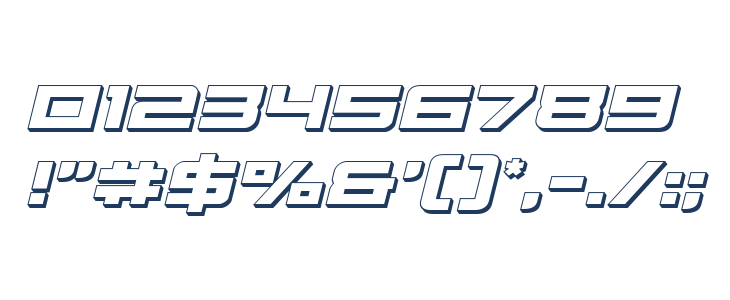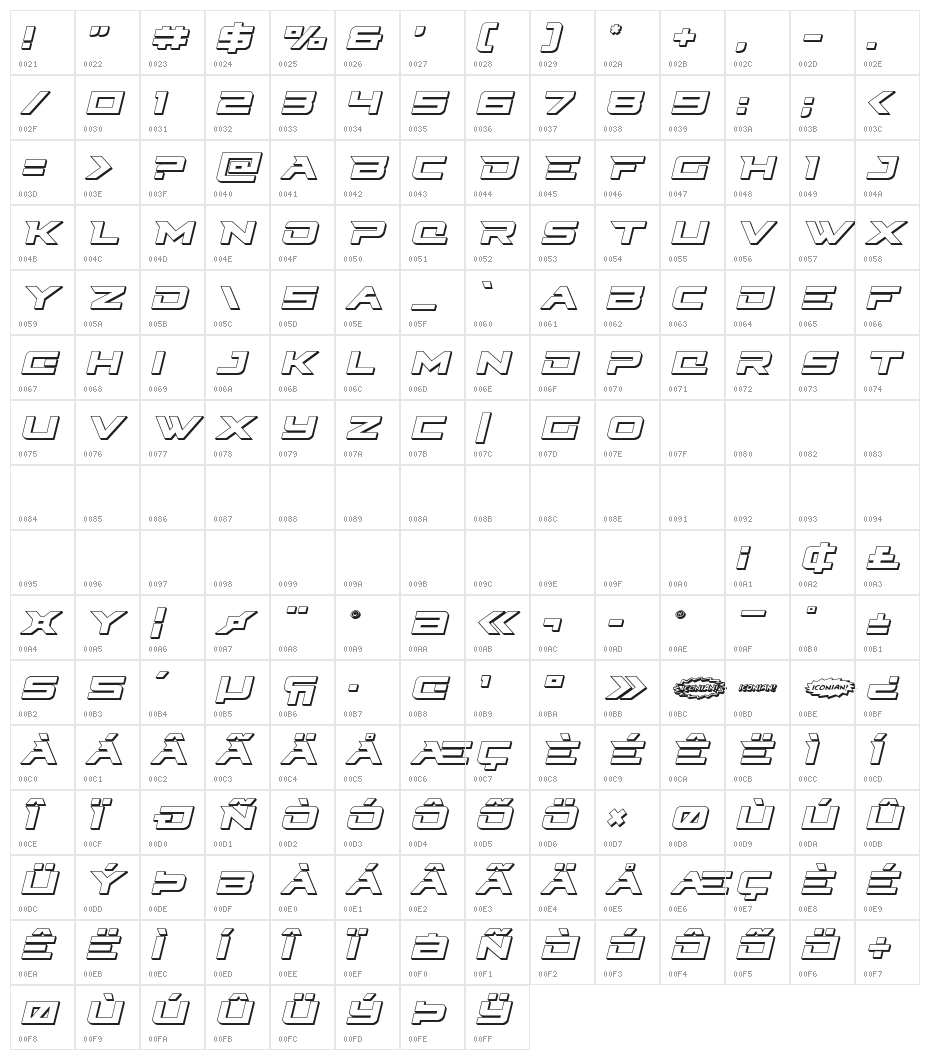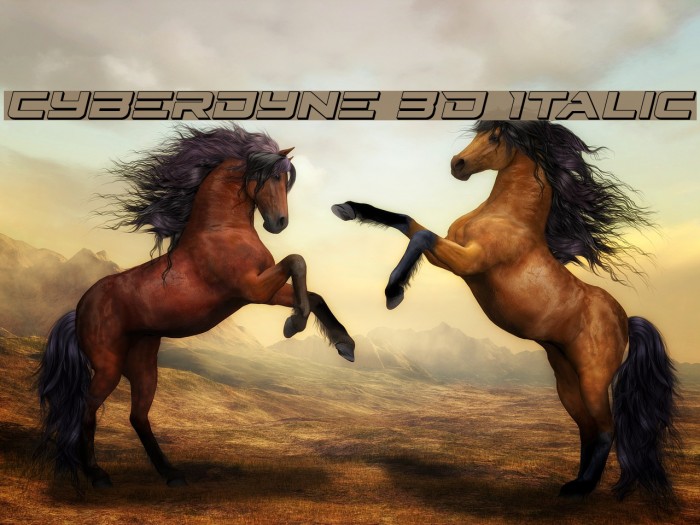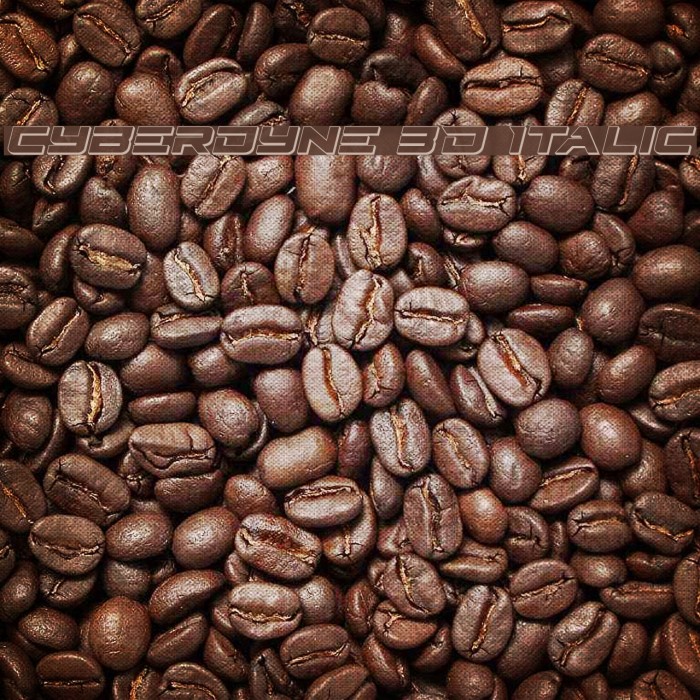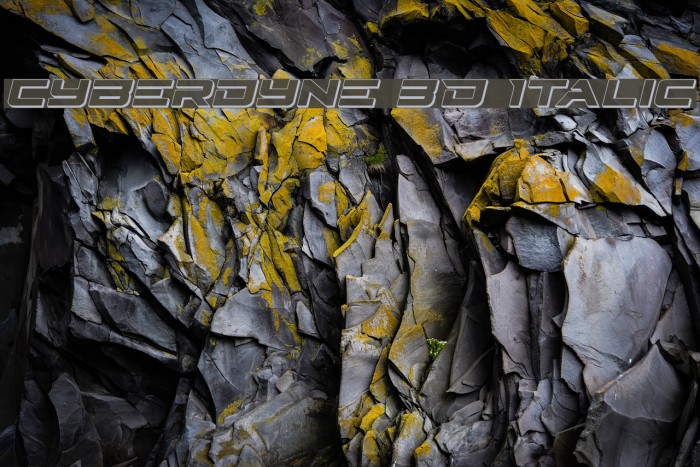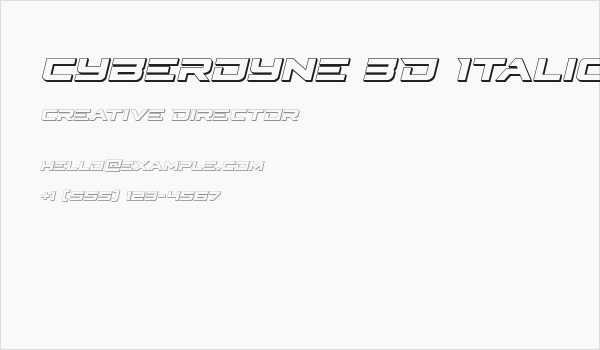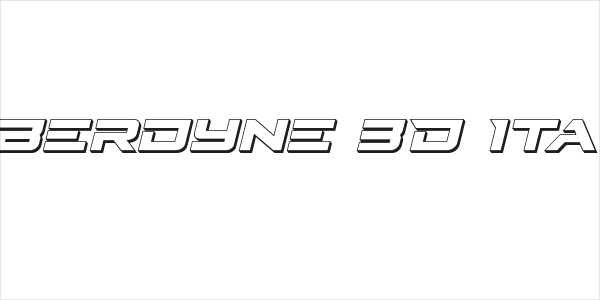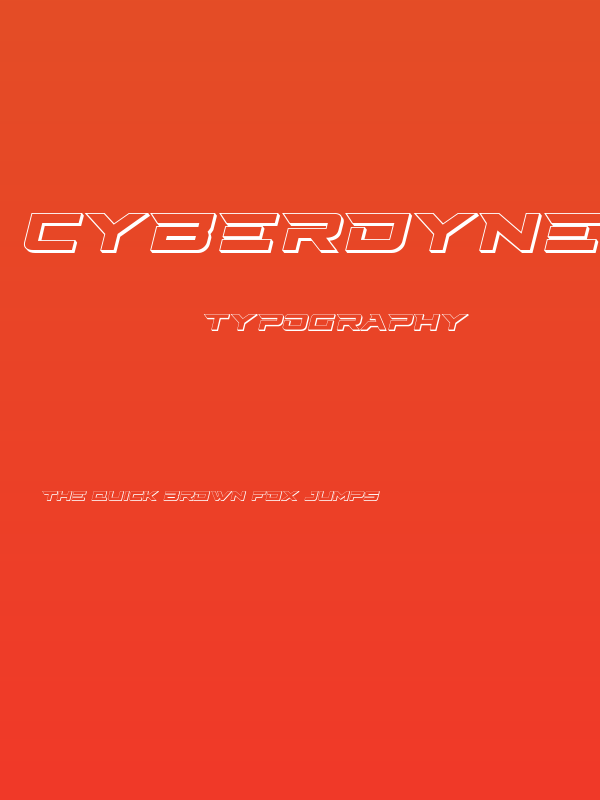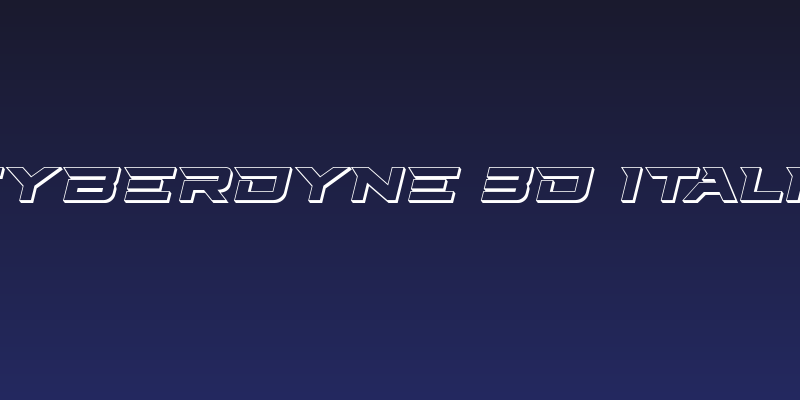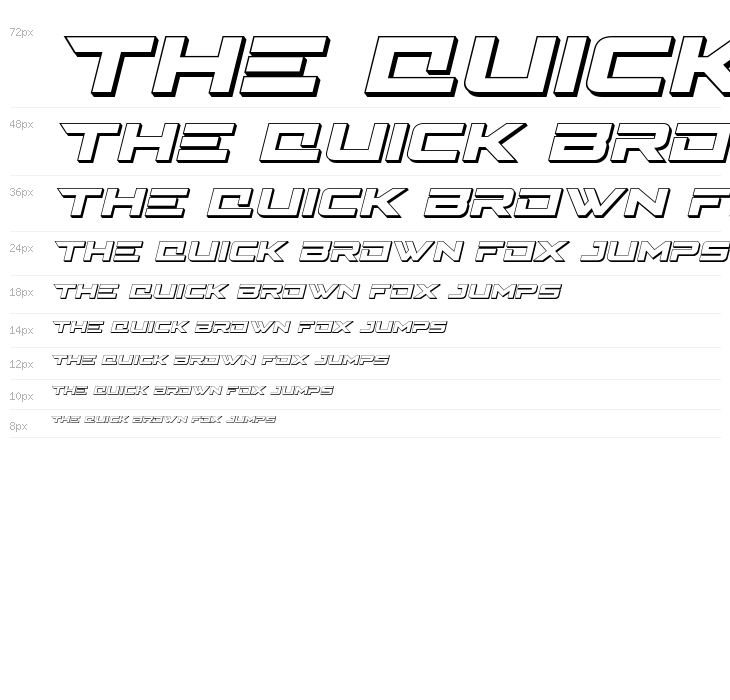
Cyberdyne 3D Italic Font
Cyberdyne 3D Italic Description
This font features a futuristic and dynamic 3D design, characterized by its italicized and angular letterforms. The geometric shapes create a sense of depth and movement, making it stand out with a bold presence. Each character is outlined, enhancing the three-dimensional effect and giving it a high-tech, digital aesthetic. The font maintains a consistent structure across uppercase, lowercase, numbers, and special characters, ensuring uniformity and readability. Its sharp edges and clean lines contribute to a modern and sleek appearance, suitable for projects that aim to convey innovation and forward-thinking.
| Proposed Projects | Ideal for tech-related branding, video game titles, sci-fi movie posters, and digital interfaces. |